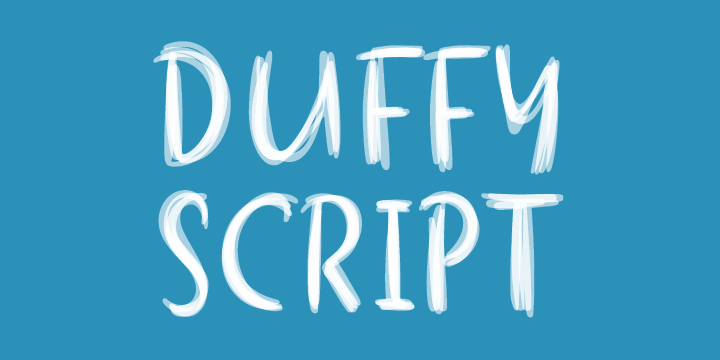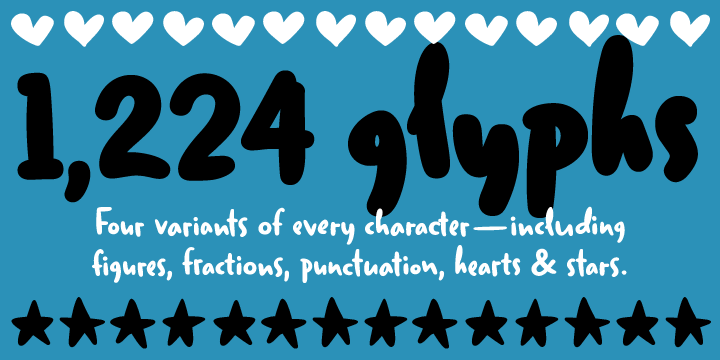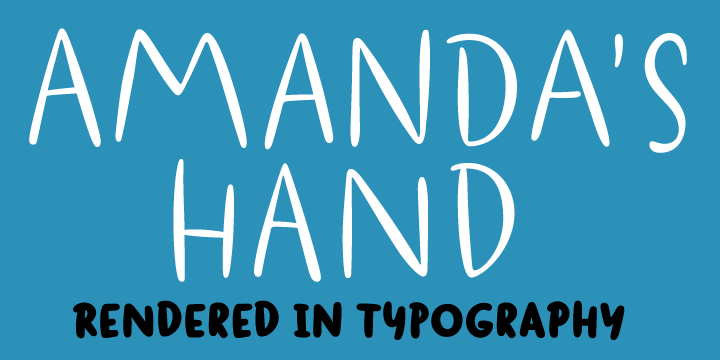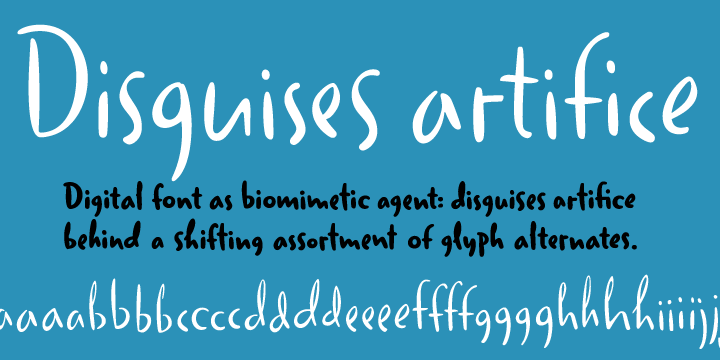
Duffy Script
Font Family by Shinntype
An interpretation of the lettering of contemporary illustrator Amanda Duffy, aka Losergirl.
Each font contains four glyphs for each character (including all numbers, punctuation, and symbols), which OpenType coding sets in ?random? order for a subtle, natural effect.
Use a curved path to further accentuate the bounced quality of the letters. Try out different combinations of glyphs by inserting the cursor in front of your headline and hitting the space bar repeatedly: each time,the text will be represented by a different sequence of glyphs.